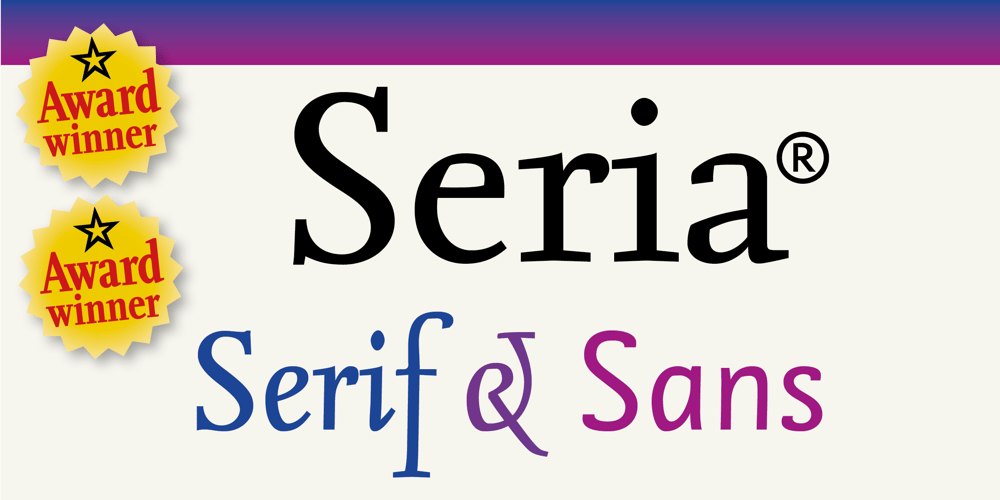
Seria Pro Font Family was designed by Martin Majoor and published by Martin Majoor. Seria Pro contains 8 styles and family package options. The multi award-winning Seria (1996) is Martin Majoor’s second comprehensive typeface family and the successor to his popular text letter Scala. Seria explores the proportions of classical text typefaces. Its degree of sophistication is perfect to be used for poetry and other refined literature, its eye-catching details however makes Seria also suitable as a display typeface. The first sketches for Seria emerged in the summer of 1996 on the train from Berlin to Warsaw, to be precise, on July 25 – the date Majoor noted on the napkins of the train’s on-board restaurant, which he used for lack of suitable drawing paper. The italics are almost upright which contributes much to Seria’s delicately proportioned appearance. The Seria family consists of Seria Serif and Seria Sans. Combining the two creates countless possibilities of expression.